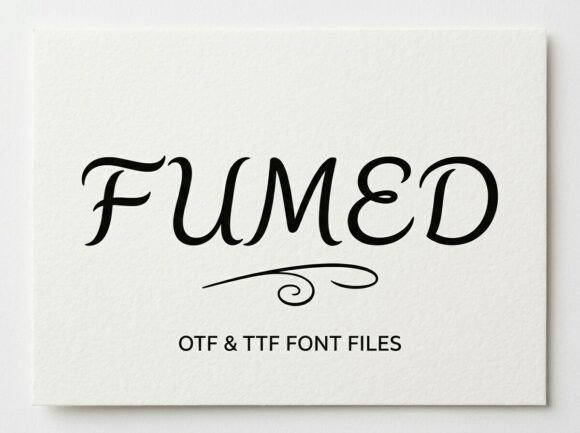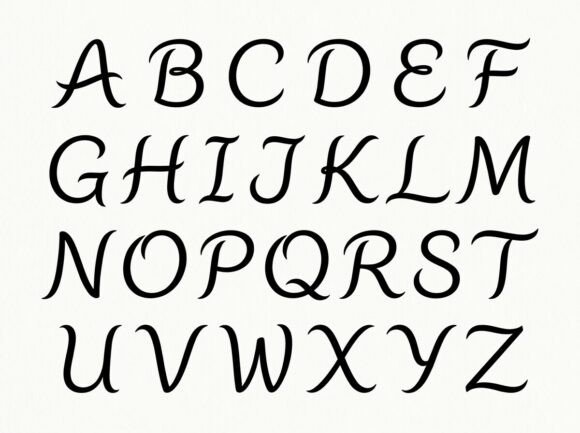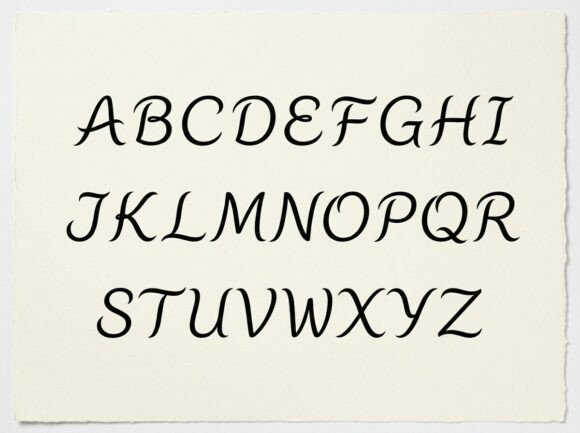
Introducing Fumed Font: The Ultimate Decorative Display Font
Are you tired of using the same old fonts for your designs? Look no further! Fumed Font is a stunning decorative display font that is sure to grab attention and take your creative projects to the next level. With its unique artistic elements and strong visual personality, this font is perfect for designers and crafters who want to break away from the ordinary.
What Makes Fumed Font Special?
Fumed Font is a versatile font that is designed to be the center of attention. Its bold and artistic design makes it perfect for a variety of applications, including bold headlines, artistic logos, and creative packaging. Whether you’re working on a branding project, a marketing campaign, or a personal craft project, Fumed Font is sure to make a statement.
Key Features of Fumed Font
- Unique Artistic Elements: Fumed Font features unique artistic elements that set it apart from other fonts. Each letter is carefully crafted to be a work of art, making it perfect for decorative initials and high-impact headlines.
- Strong Visual Personality: This font has a strong visual personality that is sure to grab attention. Its bold and artistic design makes it perfect for designers and crafters who want to make a statement.
- Versatile: Fumed Font is versatile enough for a variety of applications, including bold headlines, artistic logos, and creative packaging.
- Professional and Polished Finish: Despite its bold and artistic design, Fumed Font maintains a professional and polished finish, making it perfect for commercial projects.
Why Choose Fumed Font?
There are many reasons why you should choose Fumed Font for your next project. Here are a few:
- Stand Out from the Crowd: With Fumed Font, you can create designs that stand out from the crowd. Its unique artistic elements and strong visual personality make it perfect for designers and crafters who want to make a statement.
- Save Time: Fumed Font is a high-quality font that is designed to save you time. With its bold and artistic design, you can create professional-looking designs in no time.
- Perfect for Commercial Projects: Fumed Font is perfect for commercial projects. Its professional and polished finish makes it suitable for branding, marketing, and advertising projects.
How to Use Fumed Font
Using Fumed Font is easy. Here are a few tips:
- Use it for Headlines: Fumed Font is perfect for headlines. Use it to create bold and attention-grabbing headlines that make a statement.
- Use it for Logos: Fumed Font is also perfect for logos. Use it to create artistic and memorable logos that represent your brand.
- Use it for Packaging: Fumed Font can also be used for packaging. Use it to create eye-catching packaging that stands out on store shelves.